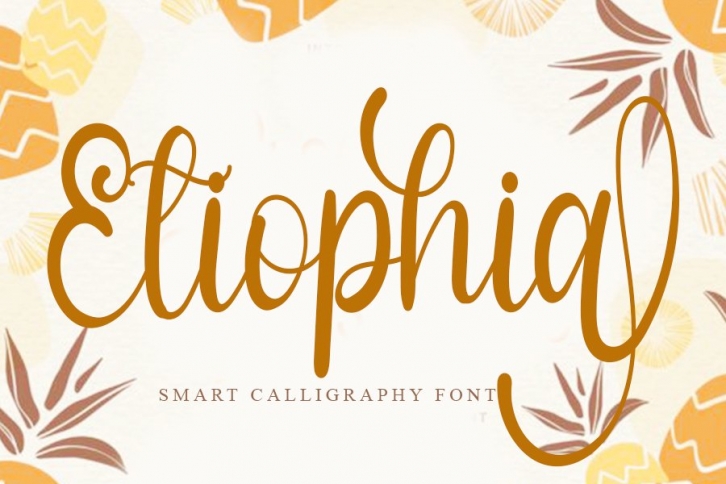
Etiophia is a gorgeous font that was realeased on April 30, 2021. The font can be used in many style contexts and design environments. Perfect for invitations, magazines, websites, logos, and more! It was designed by InermediaSTUDIO and the file size is 13.66 MB. Thanks for checking out this font!